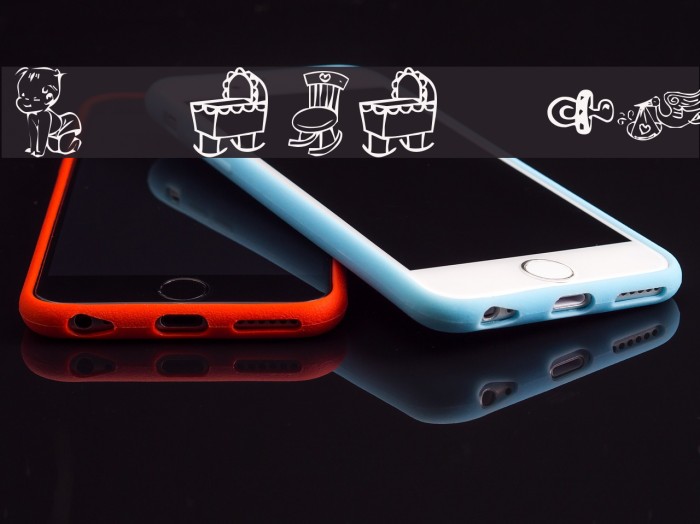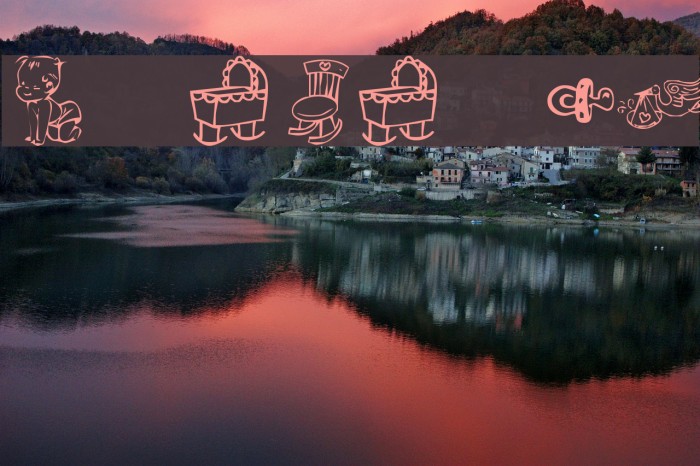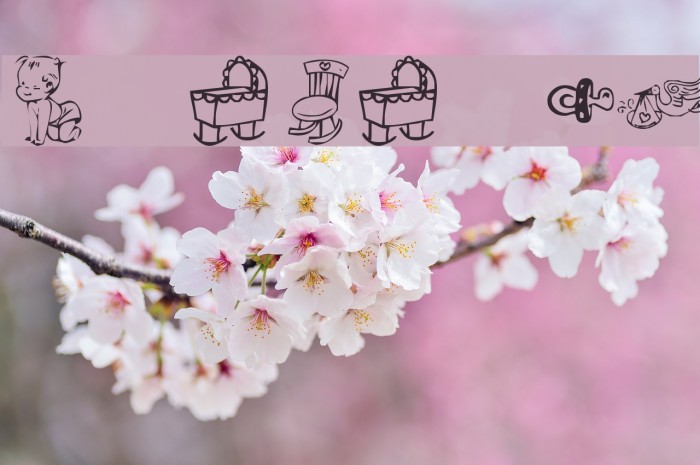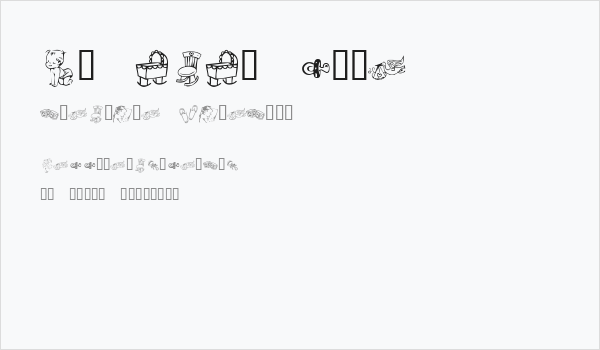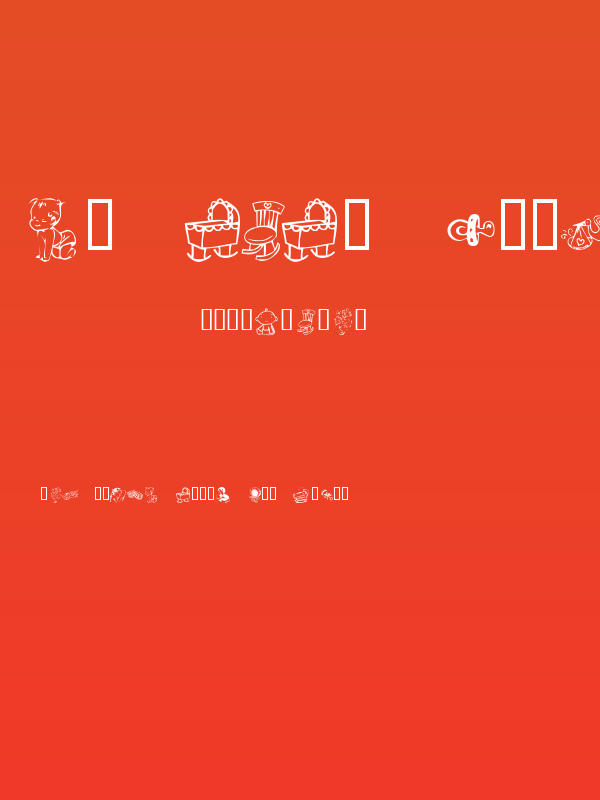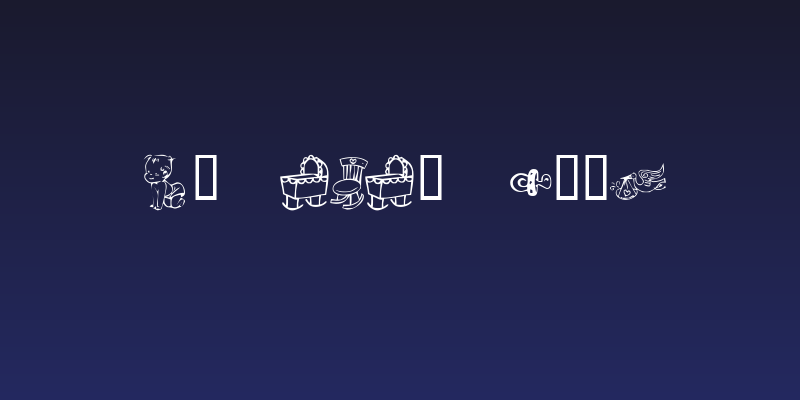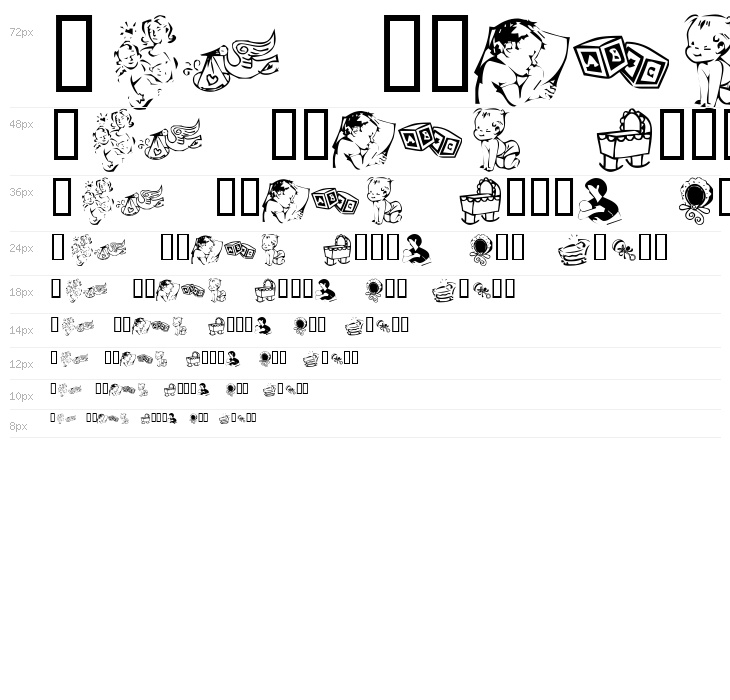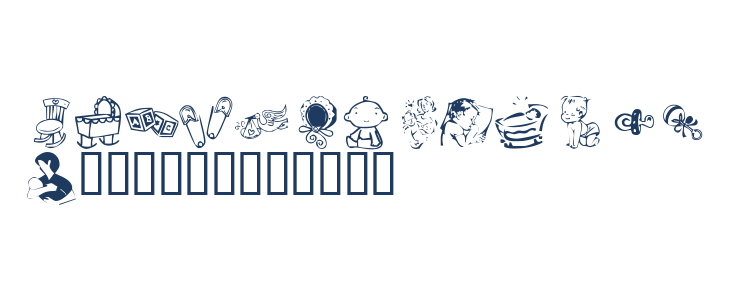
KR Baby Love Font
KR Baby Love Description
This is not a traditional font but rather a collection of baby-themed icons and illustrations. Each character is represented by a unique, playful image related to babies, such as baby bottles, pacifiers, and other baby-related items. The style is whimsical and charming, designed to evoke a sense of warmth and care. These icons are perfect for projects that require a touch of innocence and joy, capturing the essence of early childhood with a delightful artistic flair.
| Overall Style | Whimsical |
| Use Case | Decorative elements, Thematic designs |
| Proposed Projects | Ideal for baby shower invitations, nursery decorations, children's book illustrations, and baby product packaging. |